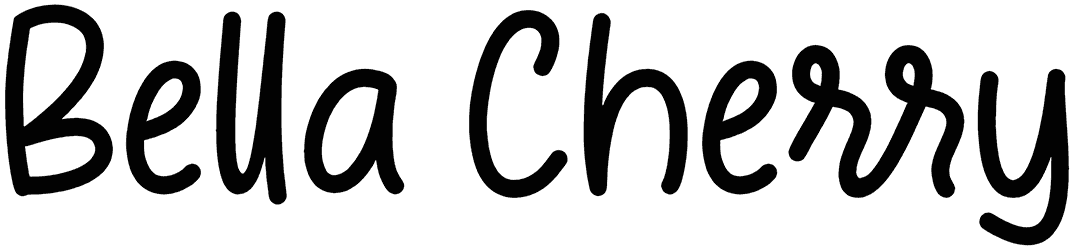
Bella Cherry Font
Elevate your typography with the nice, friendly tone of Bella Cherry and let your words make a good impression on anyone who reads them. That’s the charm of handwritten fonts and their lovely round letterforms.
Your next postcards, birthday invitations, baby clothes, and café signs can always use a playful neon font like Bella Cherry. Its light, cute structure is there to make sure everything sounds fun and happy, while the casual style makes it also super relatable.